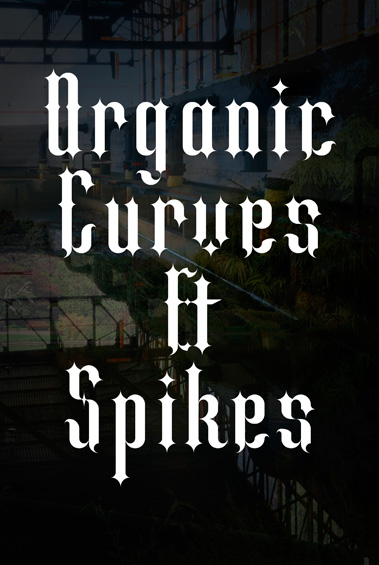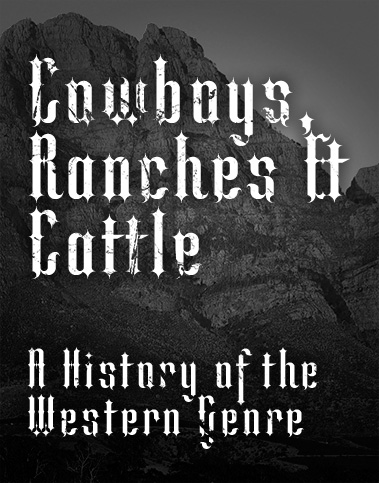
Green Organic
laynecom
A friendlier version of Black Organic.
Love it! 10/10
Another beauty!
You should go for the gusto on this one, and complete many more of the symbols and letters. This is a 10 easily.
I like a lot this sample! (but the "G" is a bit confused, IMHO).
Love the spikes! 10/10
A-W-E-S-O-M-E! Better than Black Organic. 10/10
!!!! This is a great font, a real stylish old "black". Congratulations, great job!
-G- is so sexy ))